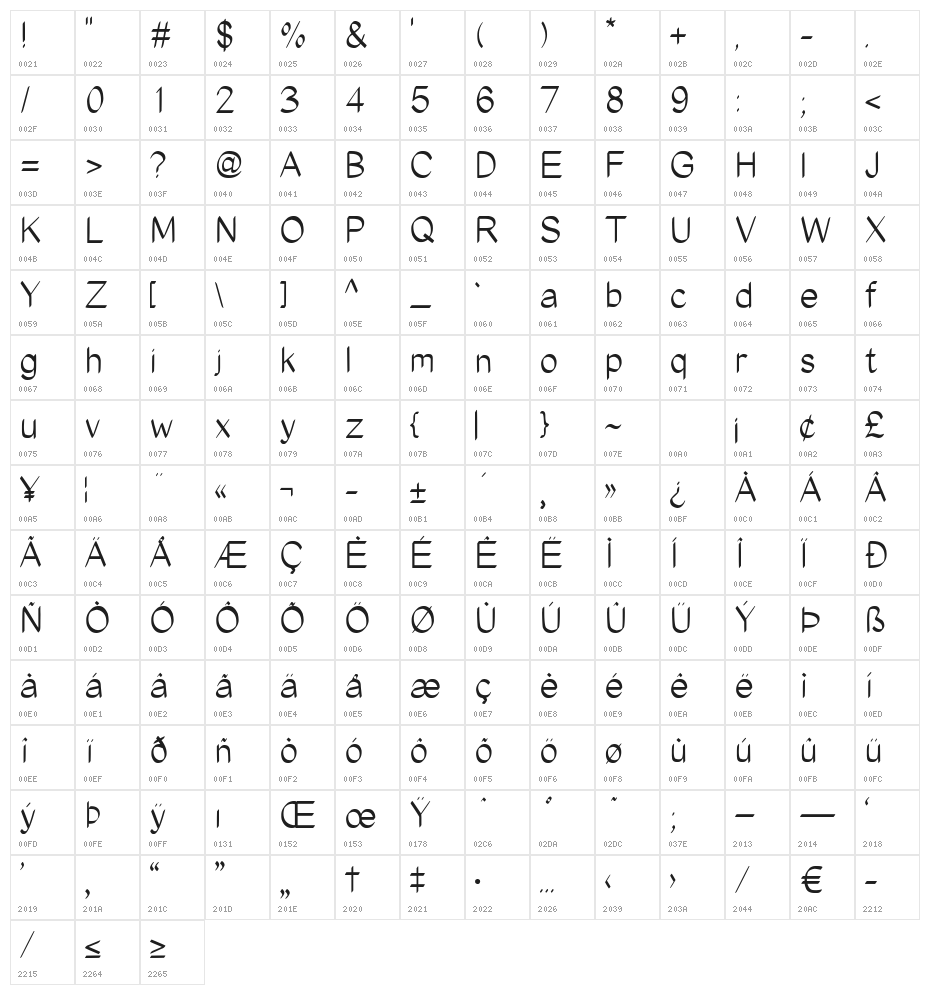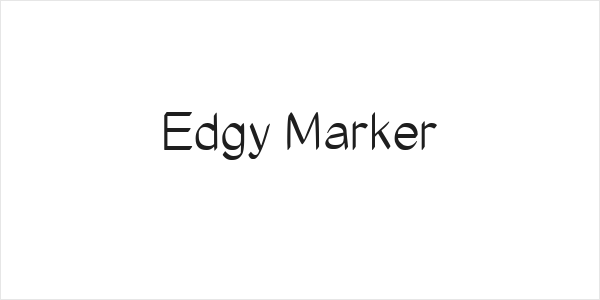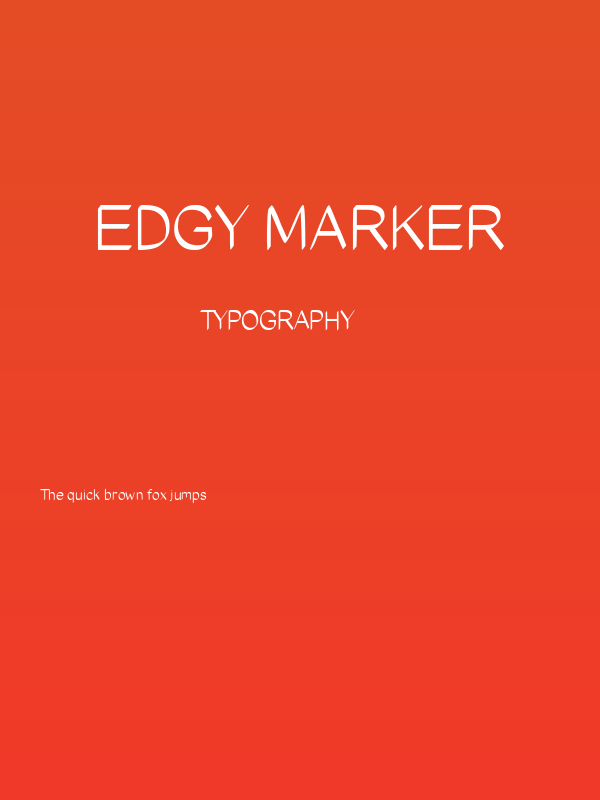
Edgy Marker Font
Edgy Marker Description
This font exhibits a modern and clean design with a sans-serif style. The characters are sleek and slightly rounded, providing a contemporary feel. The uppercase letters are uniform in height, while the lowercase letters maintain a consistent baseline with slight variations in ascenders and descenders. The numerals are clear and easy to read, matching the overall aesthetic of the alphabet. Special characters are well-integrated, maintaining the font's cohesive look. The design is versatile, making it suitable for various applications where a modern and professional appearance is desired.
Proposed ProjectsIdeal for branding, web design, advertising, and editorial projects.